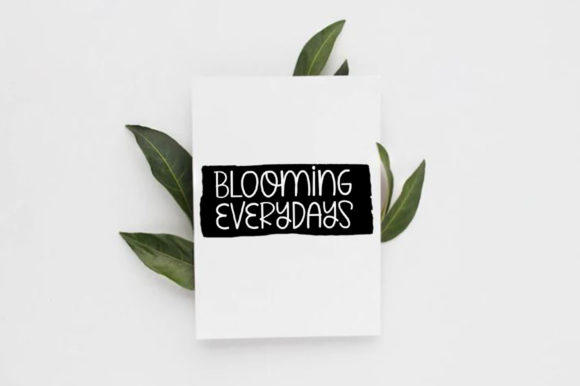
Joyful Magnolia is a handwritten font duo. One of the fonts is a casual and playful handwritten font, while the other one is a signature-style script.
This duo is ideal for watercolor designs or hand bold styles such as blog headers, posters, wedding elements, t-shirts, apparel, book covers, business cards, greeting cards, branding, merchandise, invitations, handmade quotes, etc.
Joyful Magnolia Duo Font